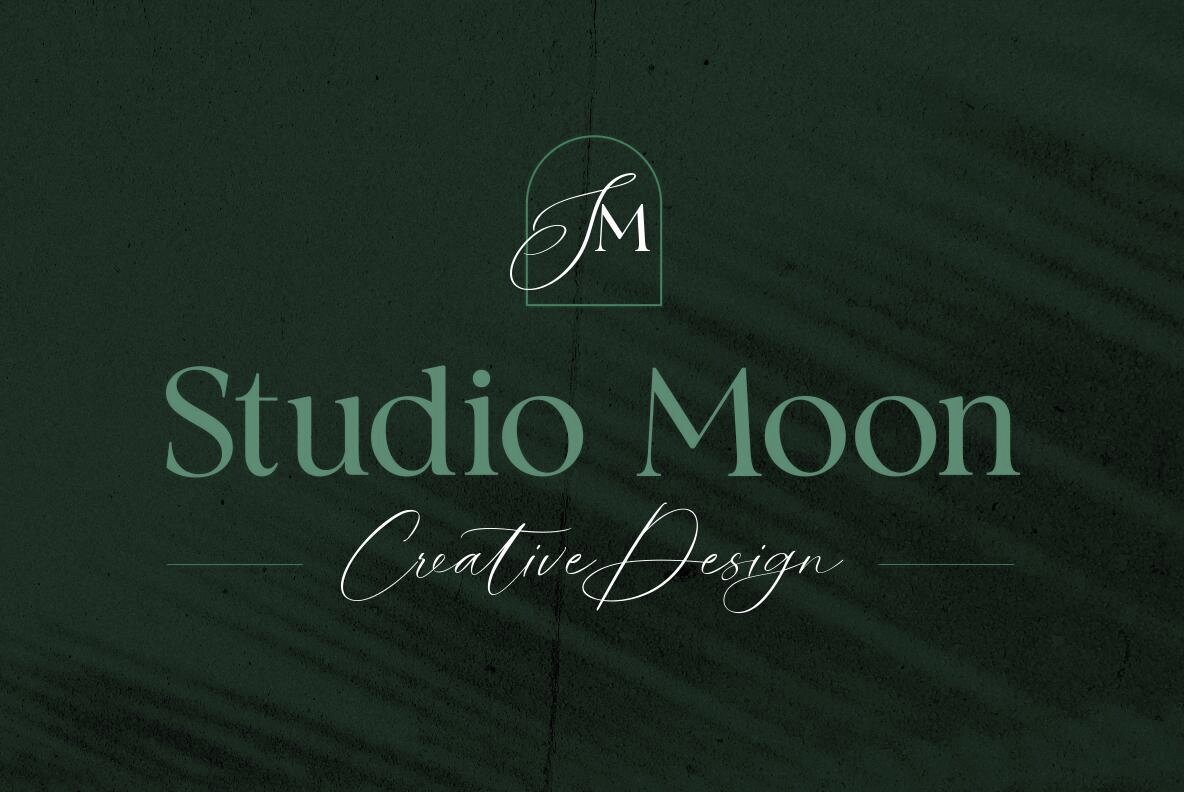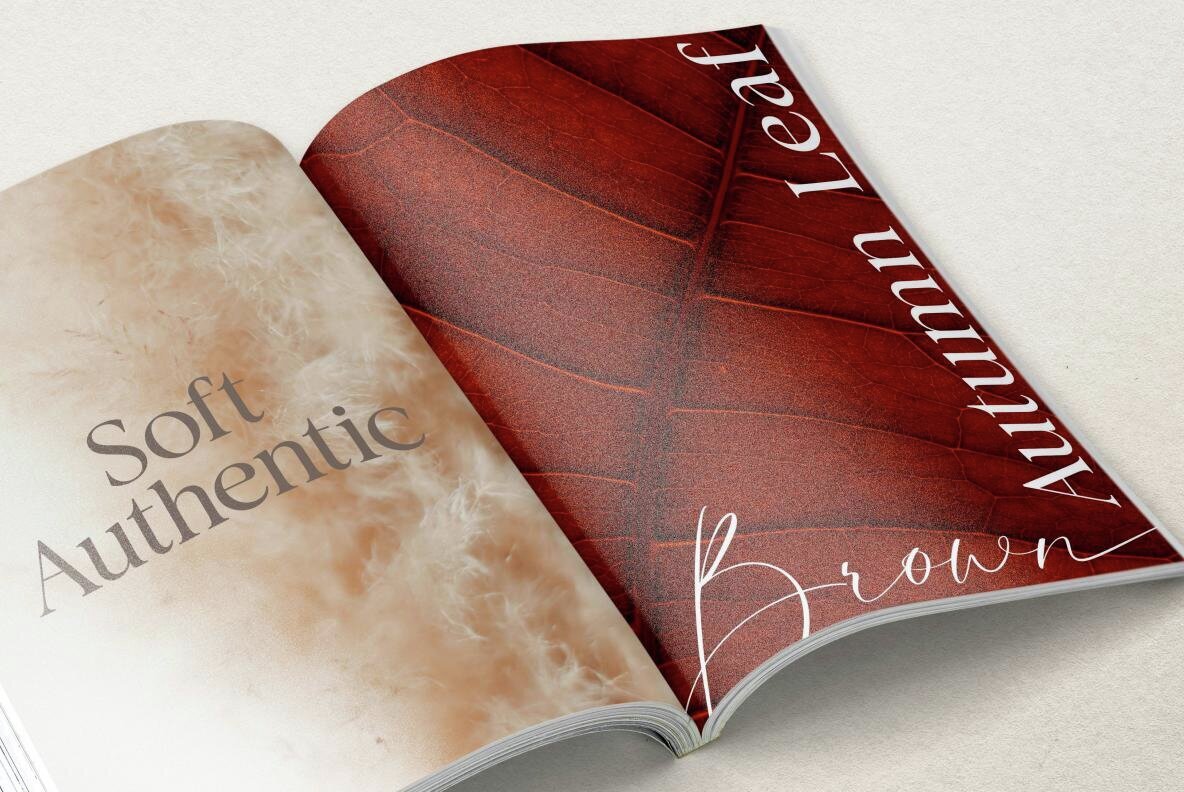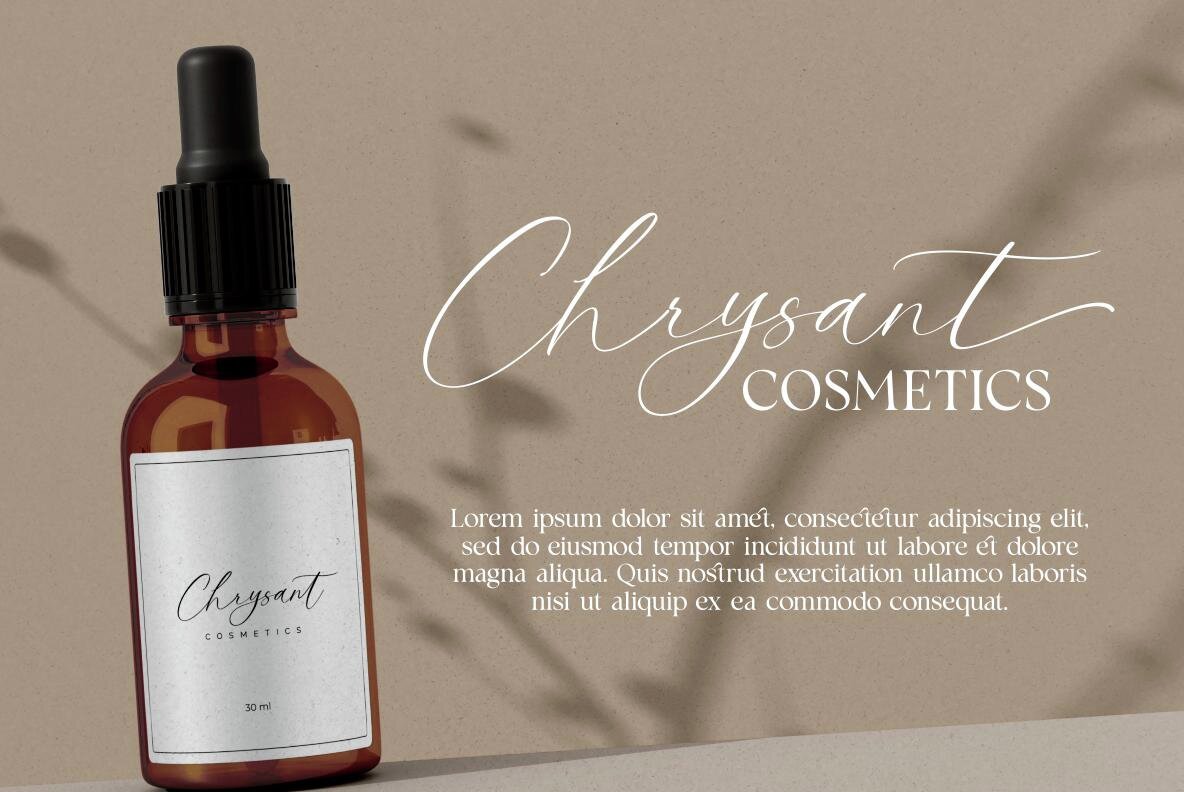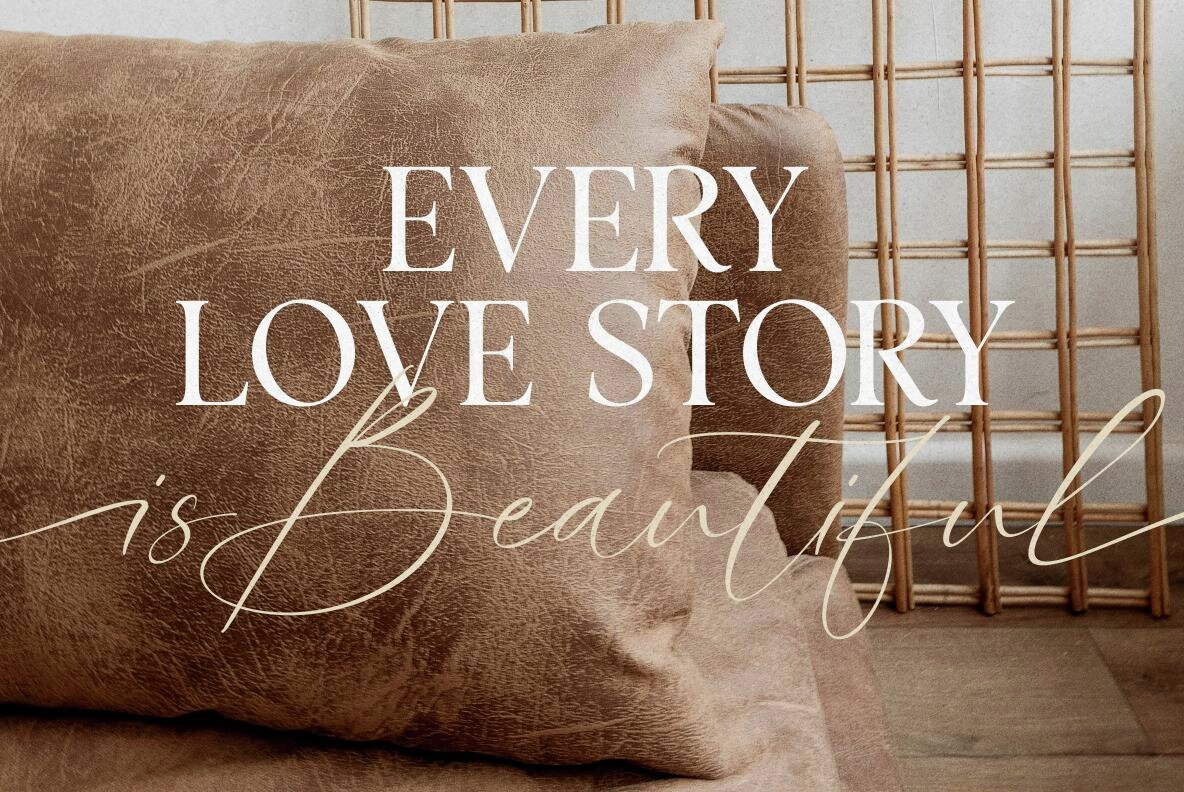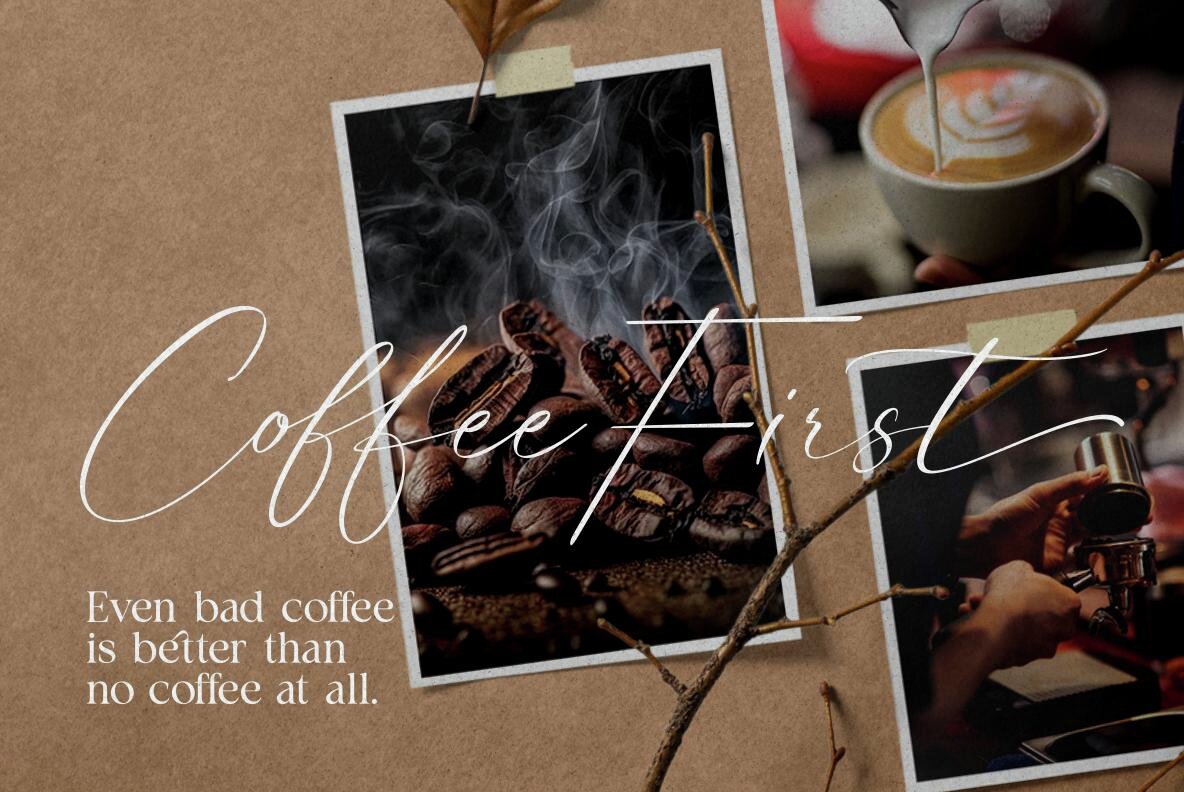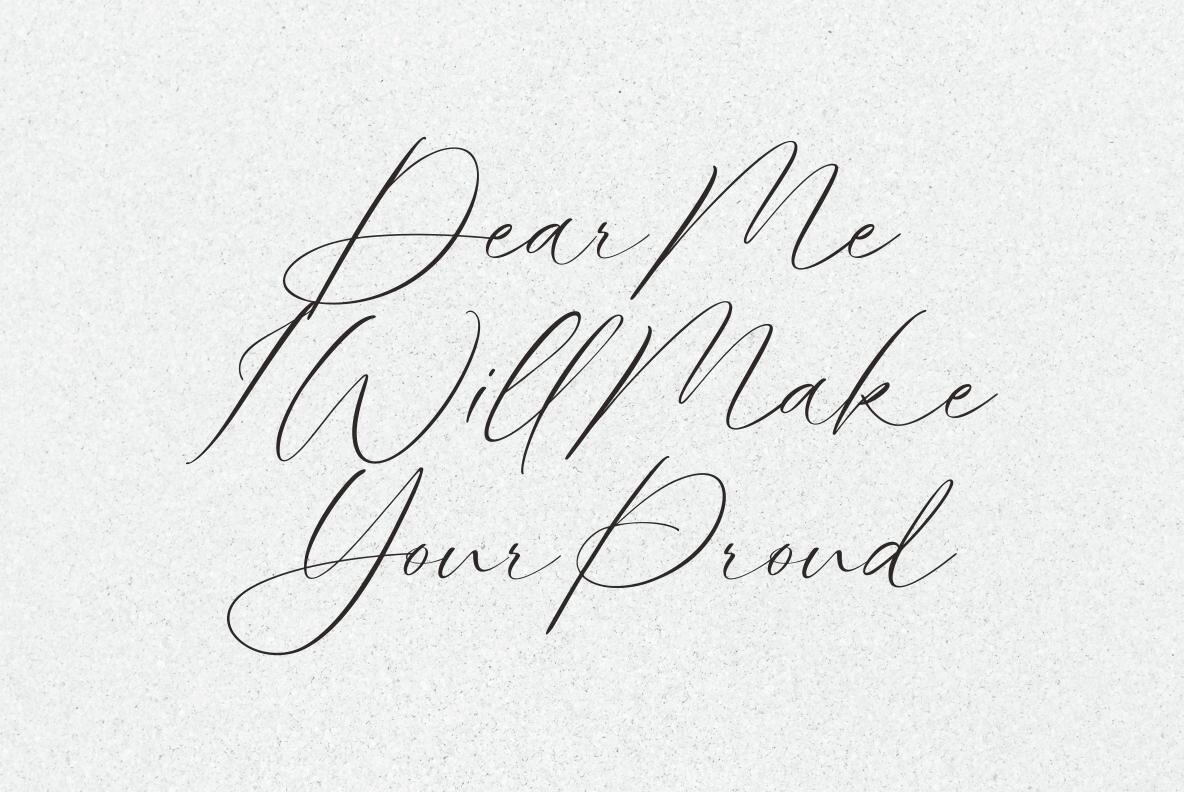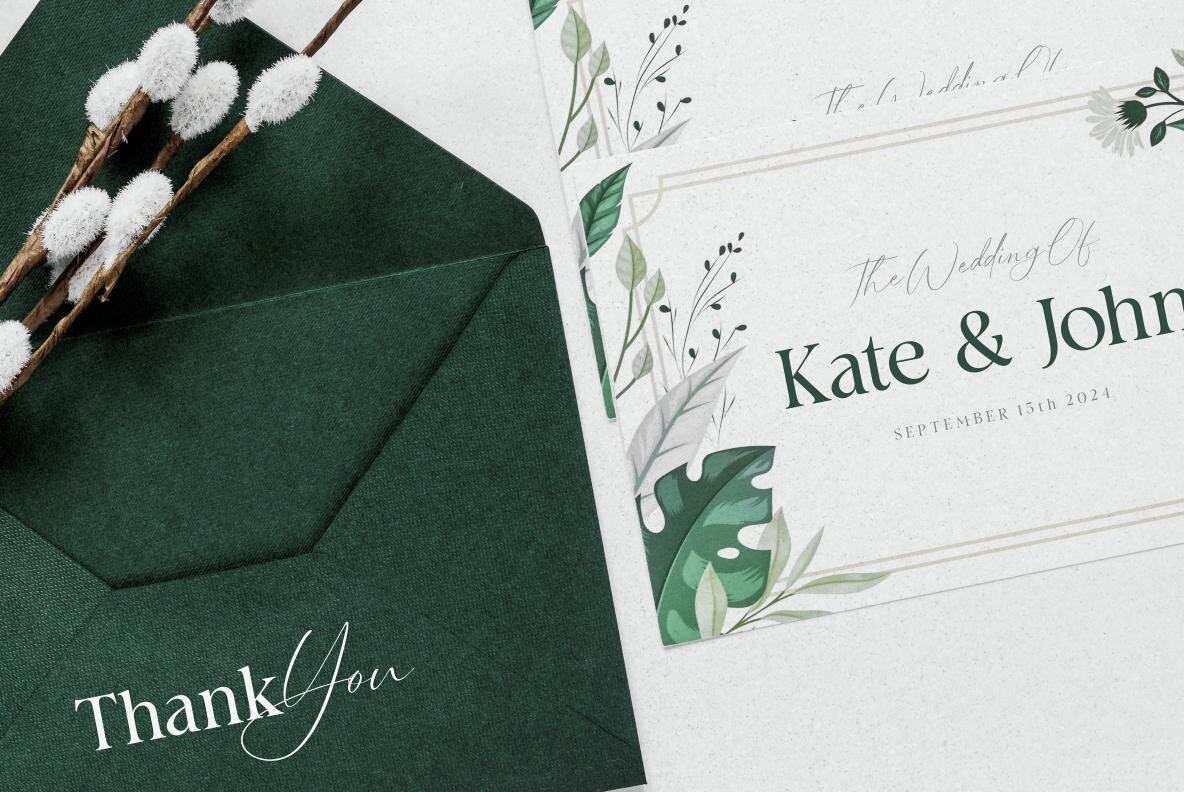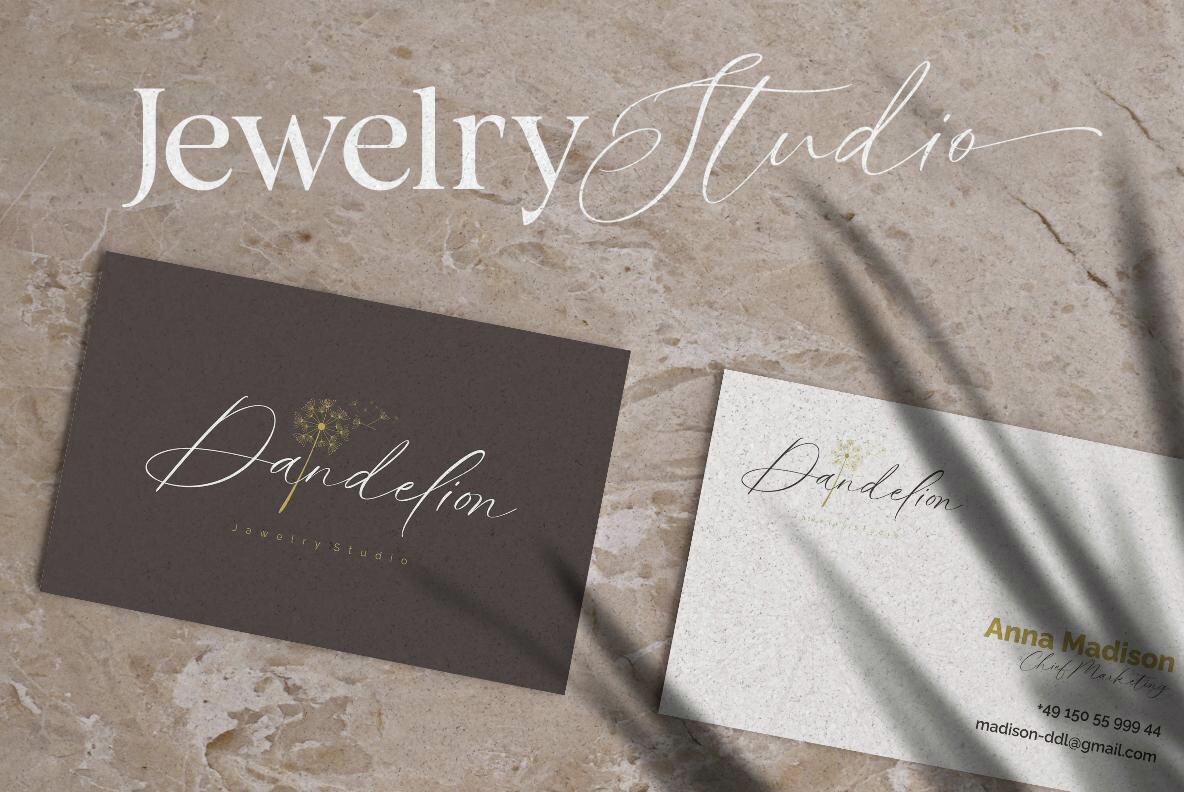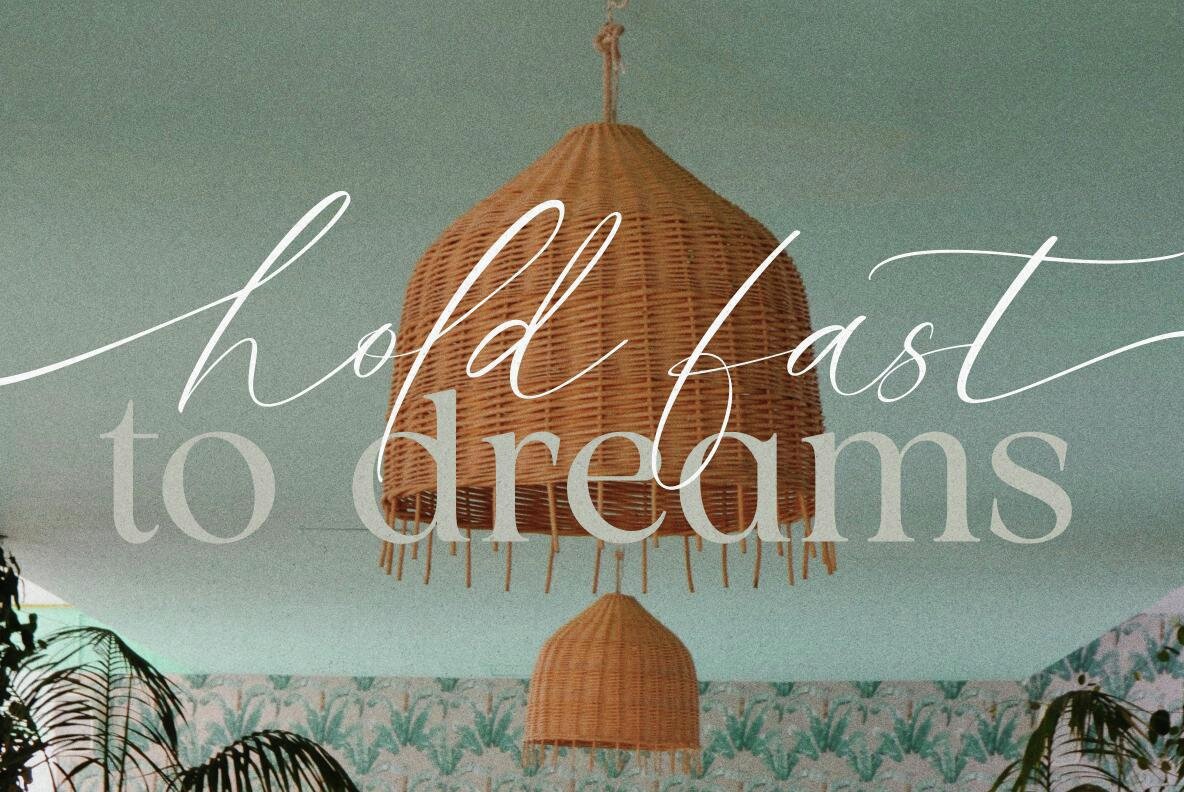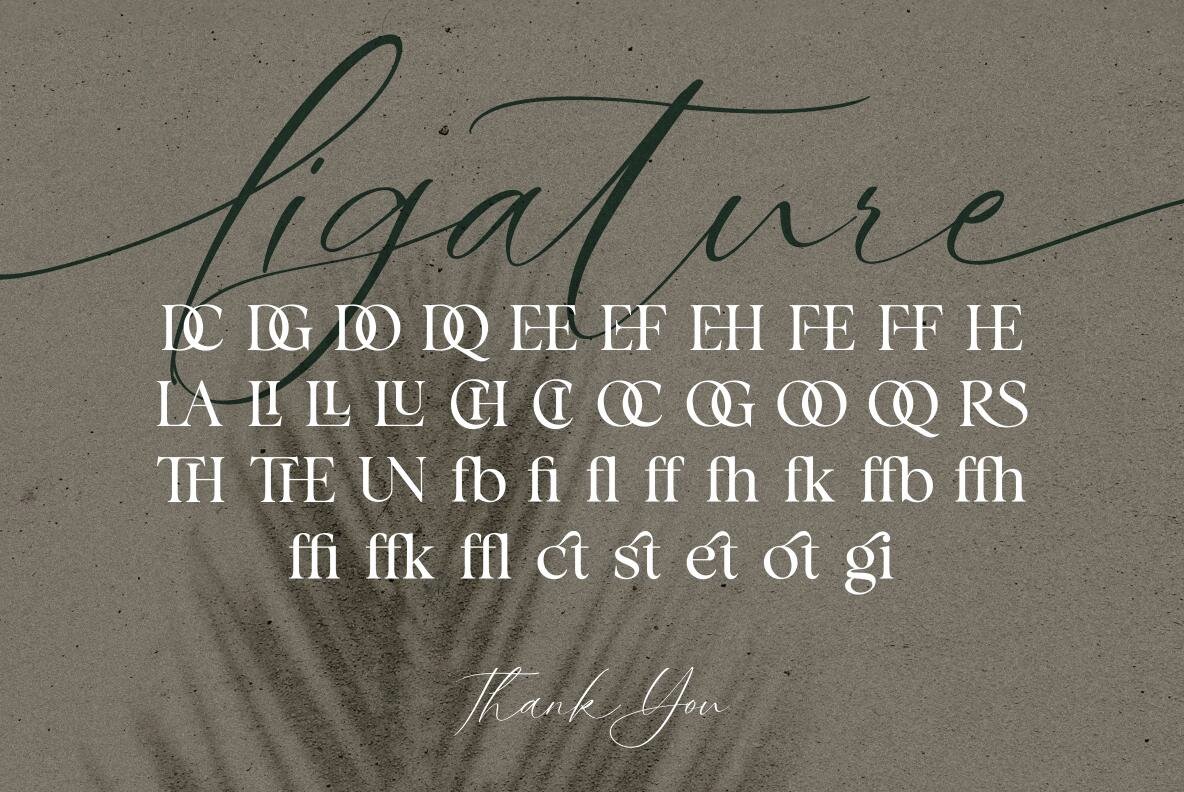
Calm Lovely Font
Calm Lovely is a modern duo font featuring both serif and script styles. The display serif typeface is inspired by famous logos and designed to provide a premium, luxurious feel. Ideal for headlines, wedding invitations, social media graphics, logos, posters, packaging, T-shirts, coffee shops, restaurants, magazine headers, signage, and postcards. Its versatility makes it suitable for any advertising purpose.